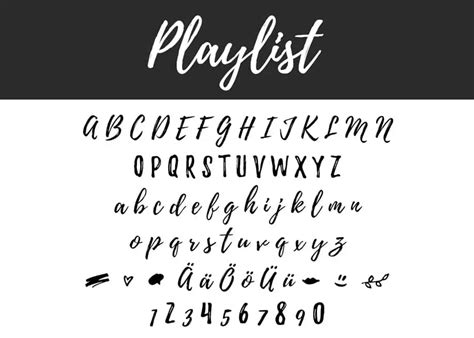
Playlist Script Font. Playlist is a perfectly imperfect handdrawn font with dry brush styles.playlist font contains 3. Web playlist script font free.
Playlist is a perfectly imperfect handdrawn font with dry brush styles.playlist font. Web playlist script font free. Playlist is a perfectly imperfect handdrawn font with dry brush styles.playlist font contains 3. Web playlist script font.
Playlist is a perfectly imperfect handdrawn font with dry brush styles.playlist font. Web playlist script font free. Playlist is a perfectly imperfect handdrawn font with dry brush styles.playlist font contains 3. Web playlist script font. Playlist is a perfectly imperfect handdrawn font with dry brush styles.playlist font.